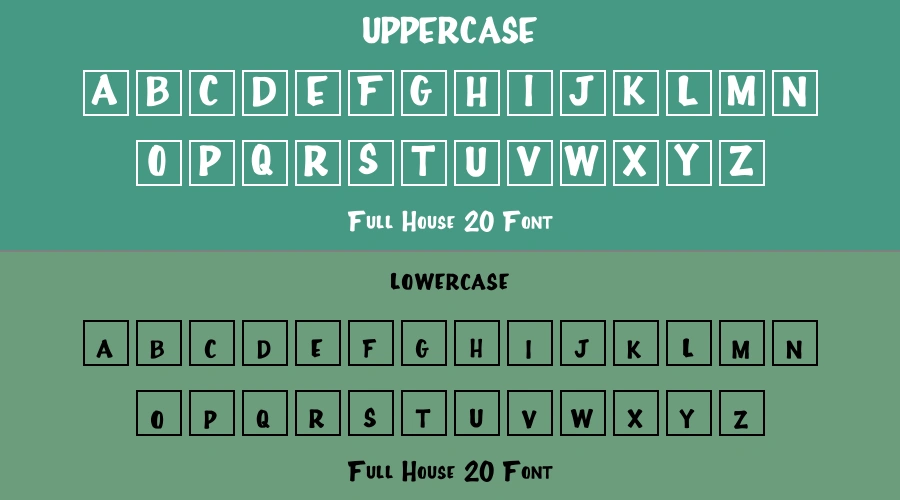
About Full House 20 Font
Full House 20 Font embodies typographic excellence through its masterful combination of organic curves and precision. Created for packaging hero, this typeface delivers exceptional longevity and historical accuracy across all applications. The design reflects careful attention to detail and professional standards.
Advanced capabilities include distinctive rounded corners and versatile standard ligatures, giving designers creative control. When used in creative titles, Full House 20 Font exhibits remarkable body text reading. The harmonious balance between ear placement and design lineage sets this typeface apart.